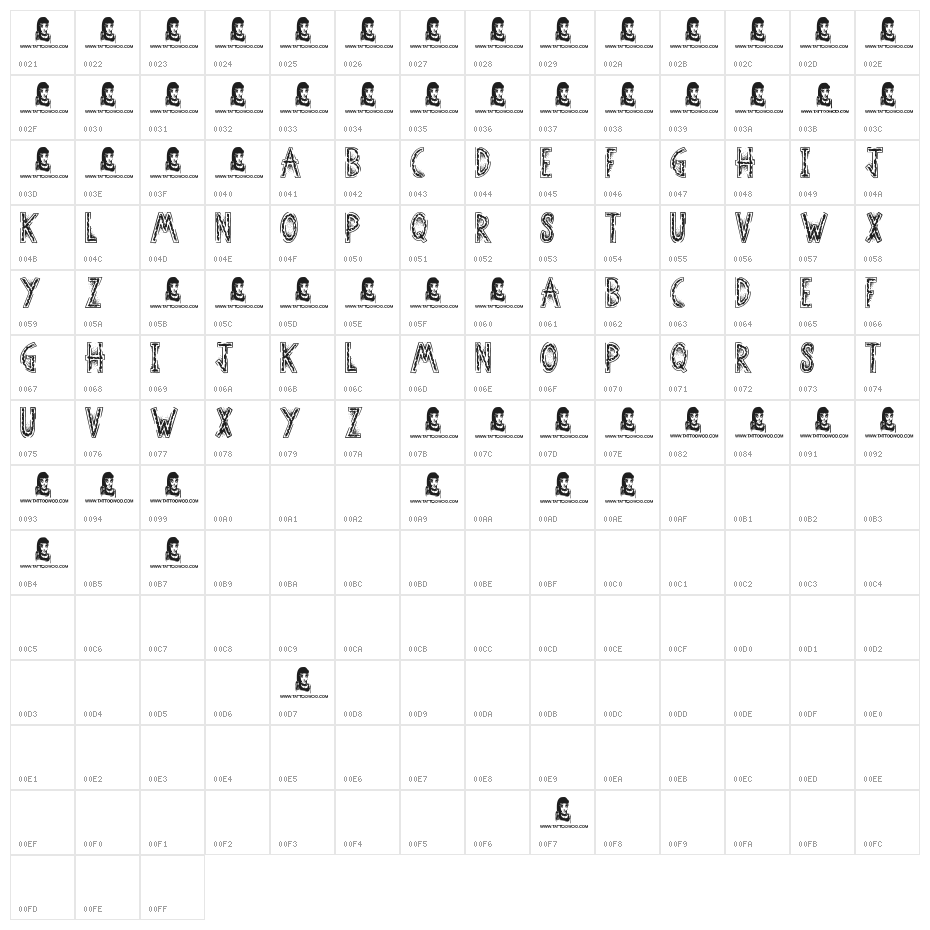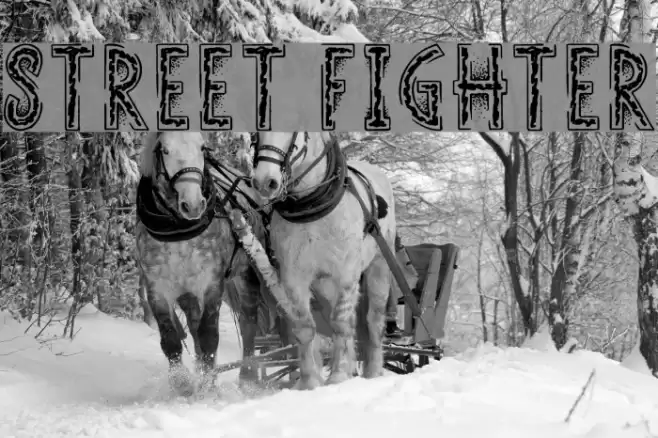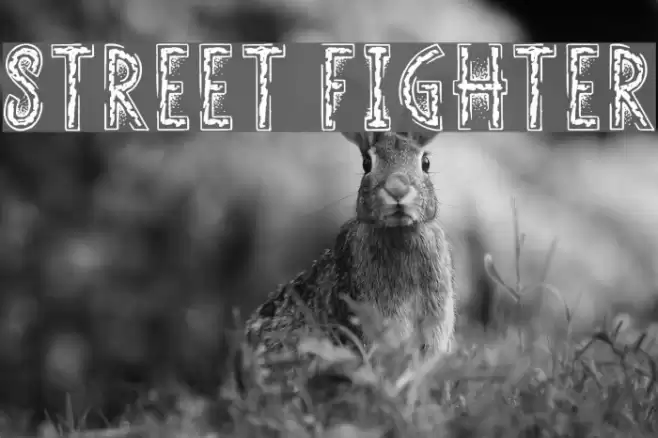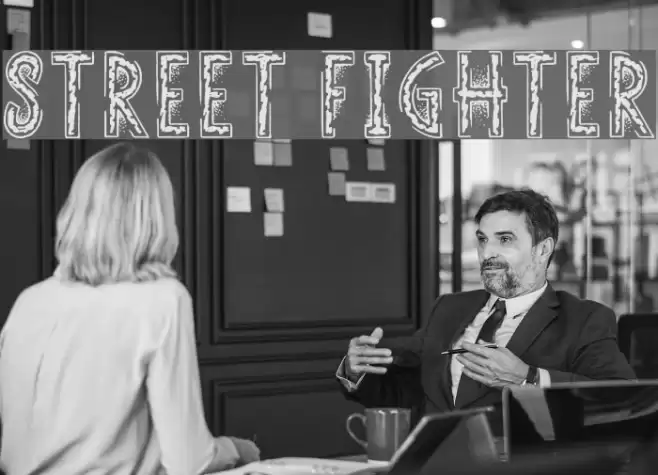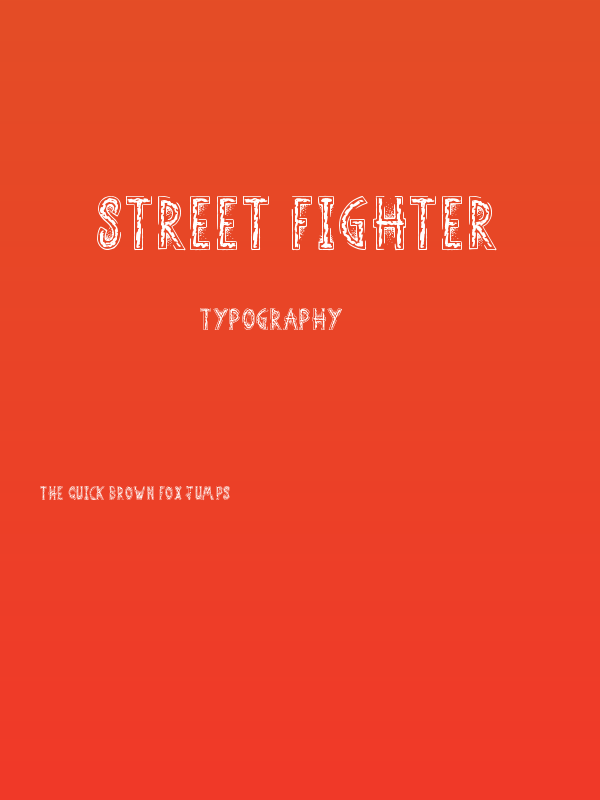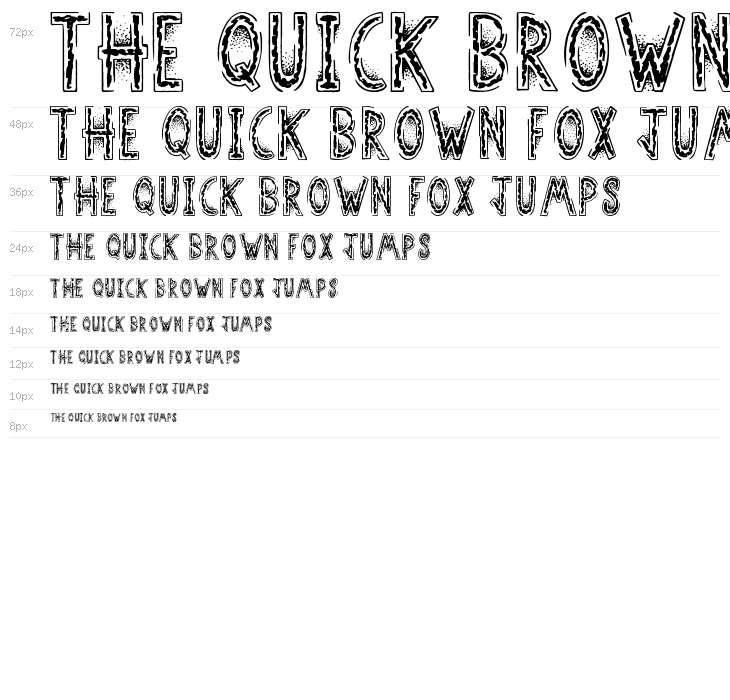
Street Fighter Font
Street Fighter Description
This font features a rugged, distressed style with a bold and impactful appearance. The characters are designed with a rough, textured look, giving them a gritty and urban feel. Each letter has a unique, hand-drawn quality, with irregular edges and a slightly chaotic design. This font is perfect for projects that require a strong, edgy aesthetic, such as posters, album covers, or video game titles. The uppercase and lowercase letters maintain a consistent style, while the numbers and special characters complement the overall design. The font's boldness and texture make it stand out, ensuring that any text will capture attention.
| Overall Style | Urban, Edgy, Distressed |
| Proposed Projects | Ideal for posters, album covers, video game titles, and edgy branding. |